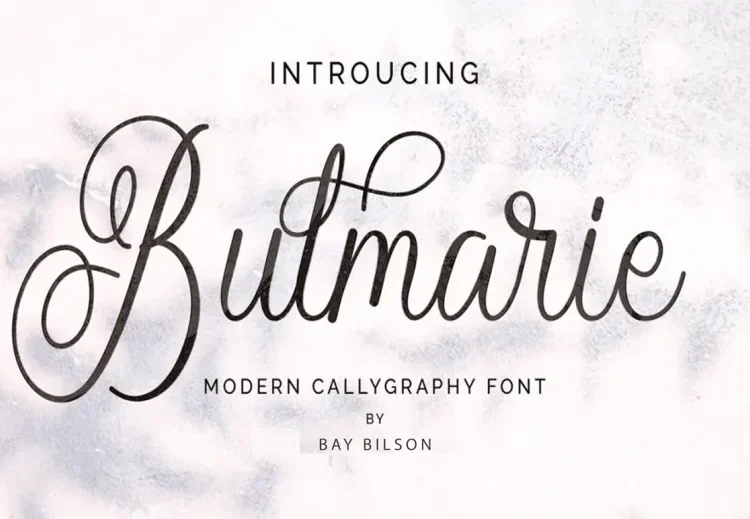
Bulmarie Font
Bulmarie is an exquisite calligraphy script font that stands out with its distinct and well-balanced letterforms. Its elegant and versatile design makes it an excellent choice for creating stunning, eye-catching designs.
Key Features of Bulmarie:
• Elegant Calligraphy: Beautiful, flowing strokes with a touch of sophistication.
• Versatile Design: Perfect for a variety of applications, from invitations to branding.
Ideal Uses:
• Invitations: Adds a touch of elegance to wedding invites, party announcements, and more.
• Branding: Enhances logos and brand materials with a sophisticated look.
• Creative Projects: Ideal for personalized designs, including stationery and custom artwork.